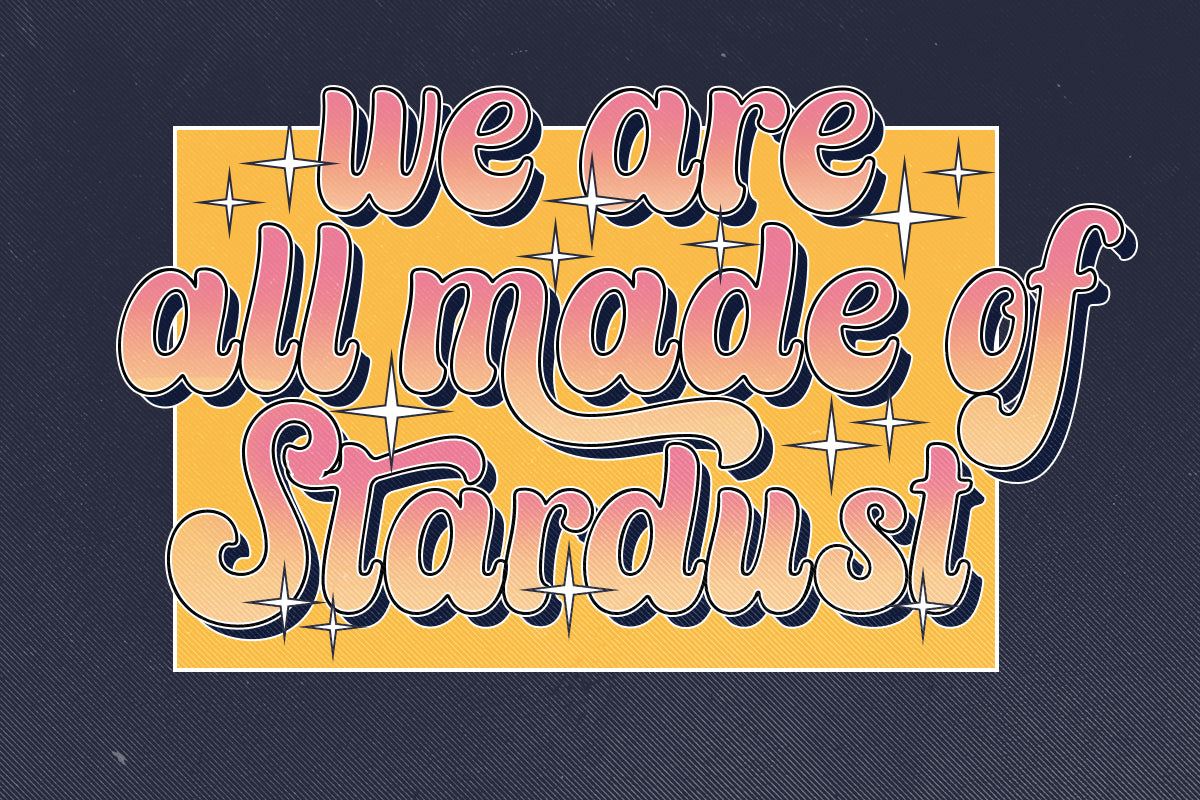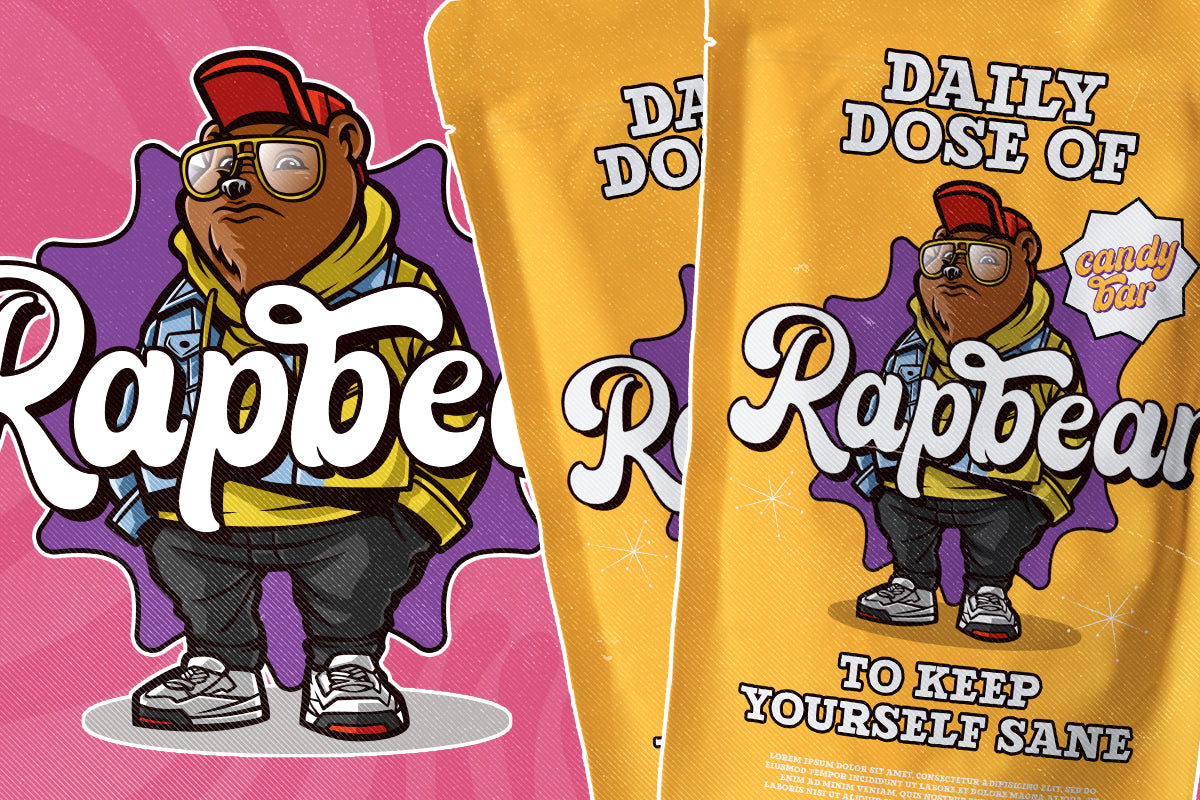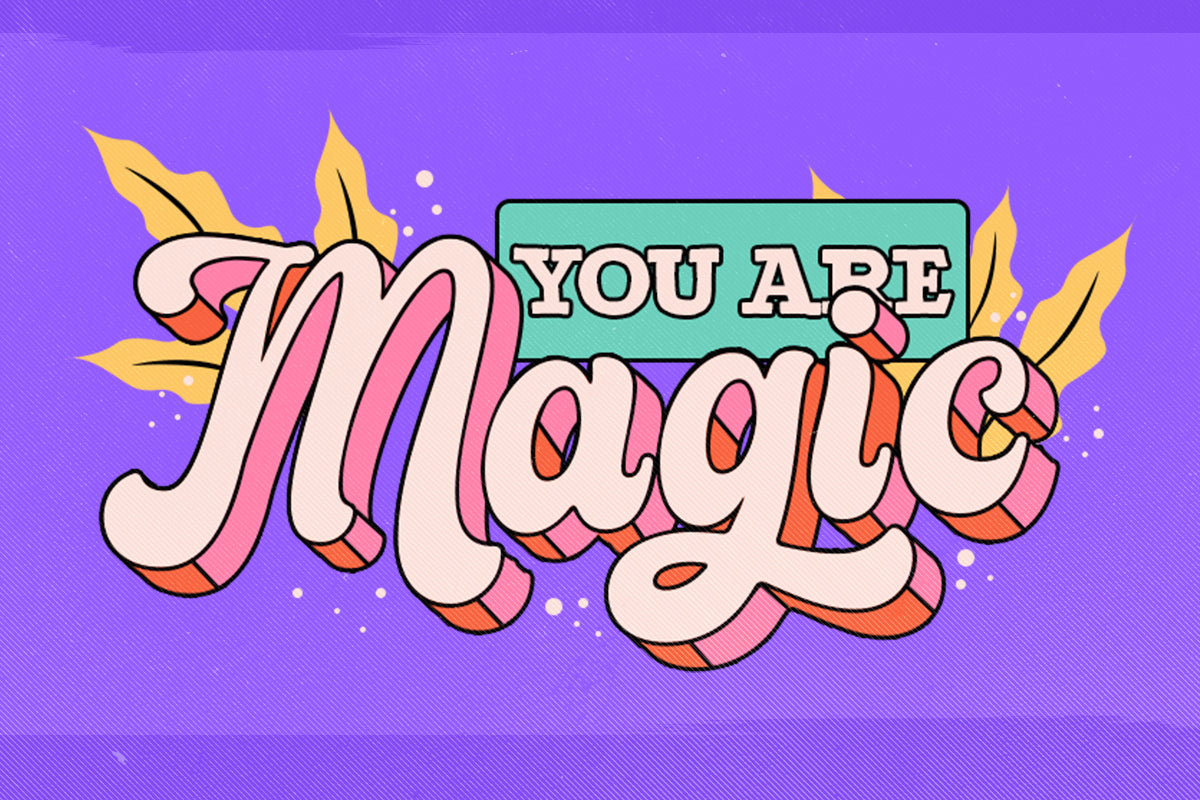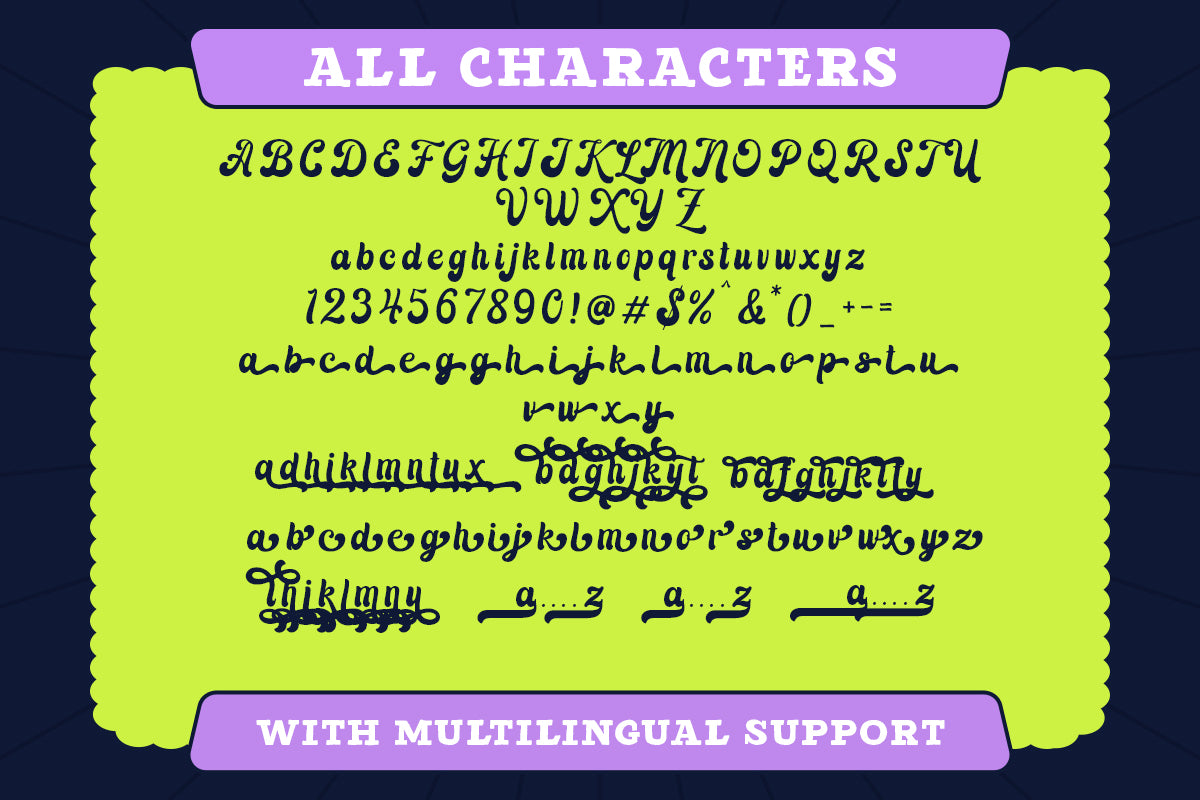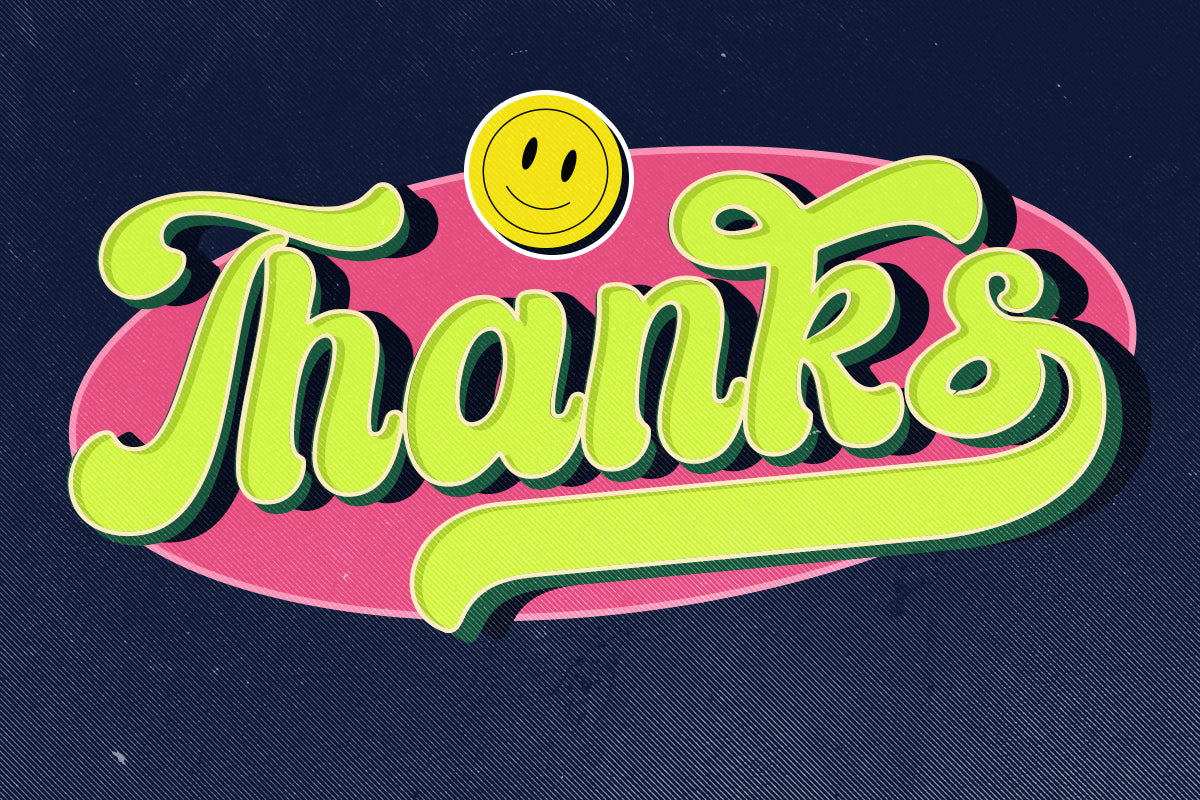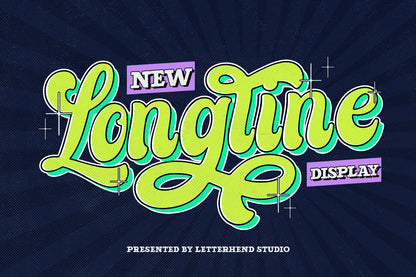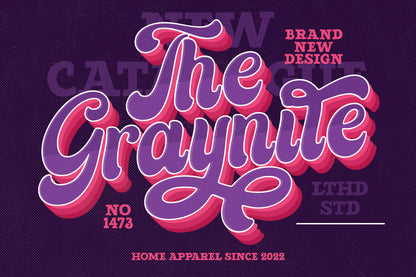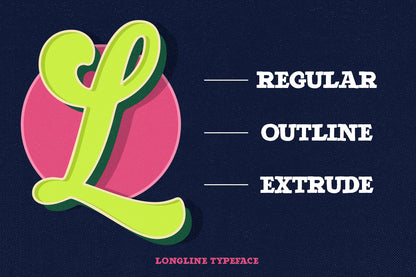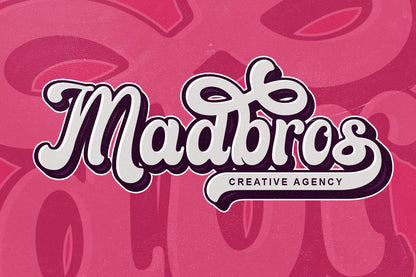
Longline - Retro Bold Script
Introducing Longline. A retro bold script that will bring you back to the 60s feel. This typeface has the extrude version so you can create your retro effect font in ease. This font is perfectly made to be applied especially in logos, and the other various formal forms such as invitations, labels, logos, magazines, books, greeting / wedding cards, packaging, fashion, make-up, stationery, novels, labels or any type of advertising purpose.
Features :
uppercase & lowercase
numbers and punctuation
multilingual
ligatures
alternates
swashes